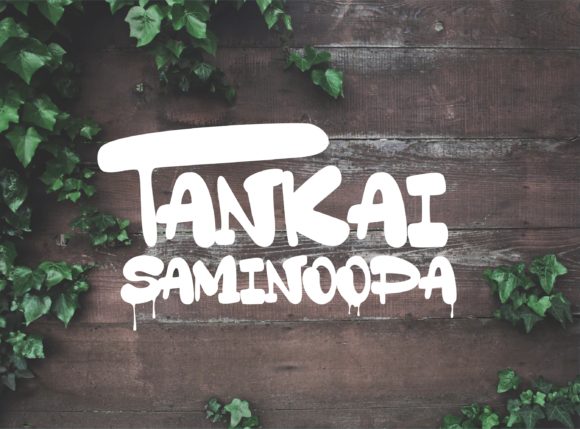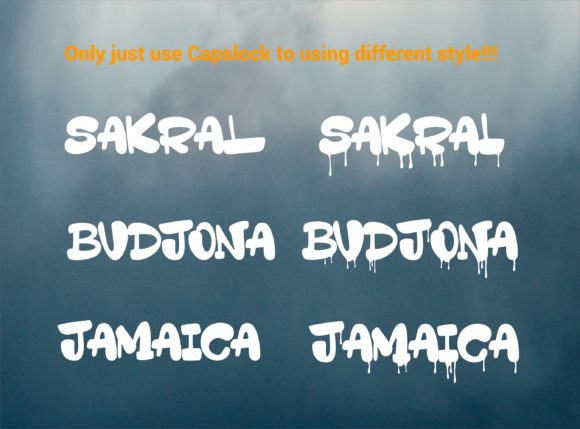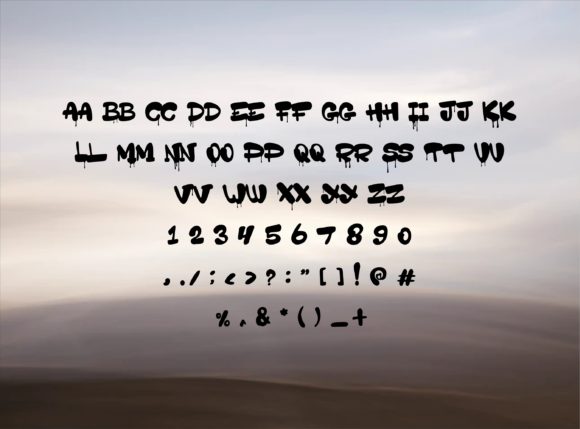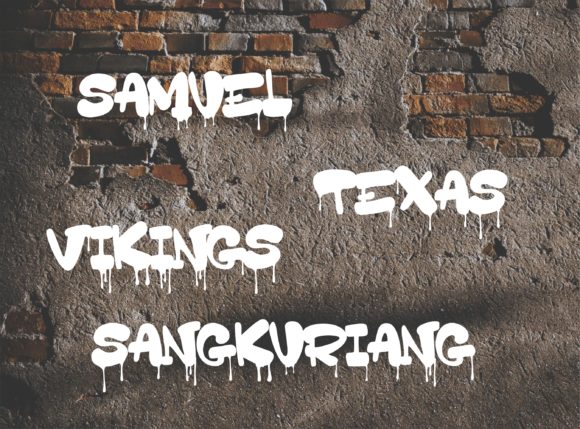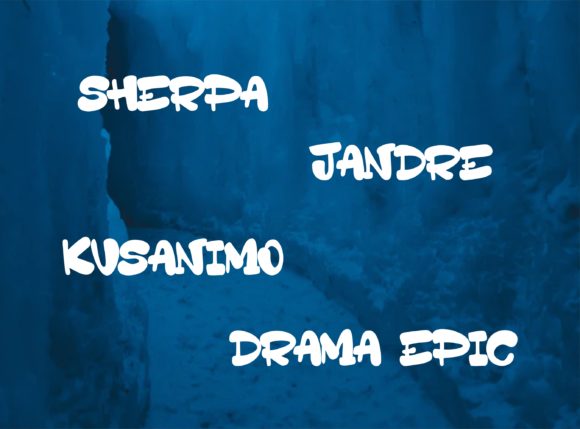
Introduction to Jamixo Font
Have you ever stared at a blank canvas, wondering what your next creative project should be? The blank page can be daunting, but with the right tools, your imagination can run wild. For designers and creatives, finding the perfect font can make all the difference between a good idea and a great one. That’s where the Jamixo Font comes in – a cute and casual display font that’s sure to add a touch of personality to your designs.
Whether you’re working on a DIY project, creating graphics for Instagram, or simply looking for a new design resource, the Jamixo Font is a valuable addition to your toolkit. With its friendly feel and versatility, it’s no wonder why this font has become a go-to choice for designers looking to add a bit of whimsy to their work. And the best part? It’s available for a free download, so you can get started right away.
- Unique characteristics: Jamixo Font features a unique blend of modern and vintage elements, making it perfect for creative projects that require a touch of elegance and sophistication.
Honest Review: Jamixo Font
I recently had the chance to dive into the world of typography with the Jamixo Font, a design resource that has left me both impressed and slightly underwhelmed.
- Unique and creative style that adds a touch of elegance to any creative project
- High quality, with clear and crisp lines that make it perfect for digital use
- Some users may find the font a bit too quirky for more formal projects
Overall, I would say that the Jamixo Font is a great addition to any designer’s toolkit, especially for creative projects where a unique touch is needed. While it may not be the best choice for every situation, it’s certainly worth checking out – and the free download option makes it a risk-free experiment!
Common use cases for Jamixo Font include logos, business cards, and social media graphics. You can also use the font to create eye-catching titles and headings for your presentation or document.